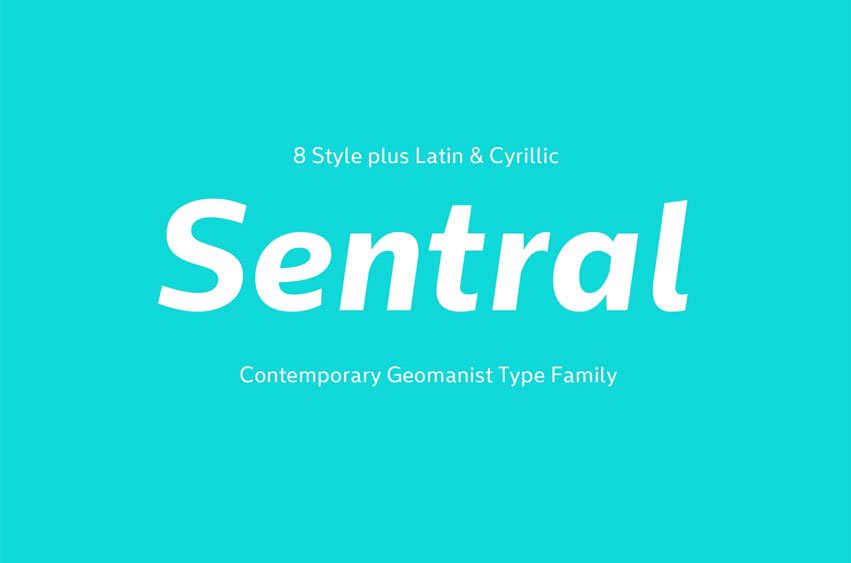
Sentral Font approached based on traditional grotesk sans-serif traits, a minimal and contemporary typography for today needs.
The functionally with geometric form, angled touch with modular stroke interpreted into visual language. The transformation and flexiblility of modern expression was combined to create the persona of main ideas, feel friendly, warm, and energetic.